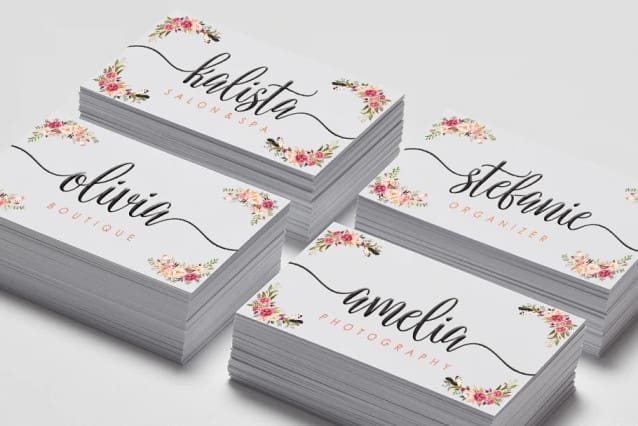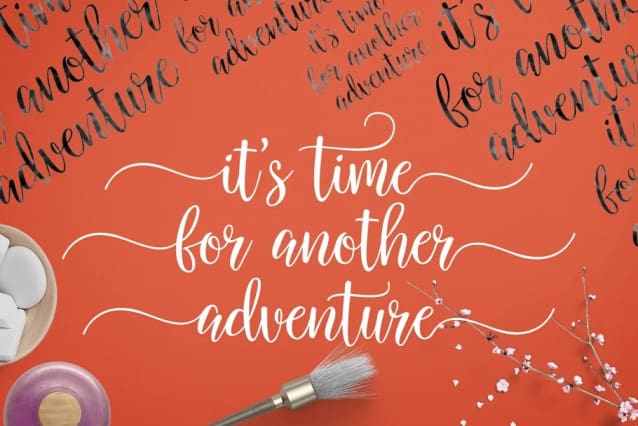
Salbatora Font
Salbatora Font a sweet handlettered font, casual and dynamic with a dancing baseline. perfect for Branding, Logos, Greeting Cards, Wedding Stationery, Quotes etc.
It comes with a handy set of Opentype Stylistic Alternates, Ligatures and multiple language support. To enable the OpenType Stylistic alternates, you need a program that supports OpenType features such as Adobe Illustrator CS, Adobe Indesign & CorelDraw X6-X7, Microsoft Word 2010 or later versions.